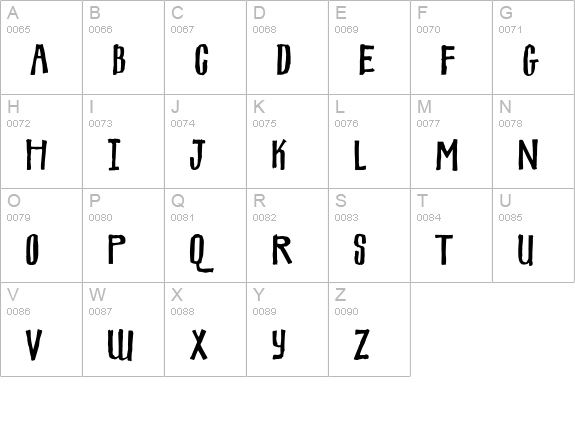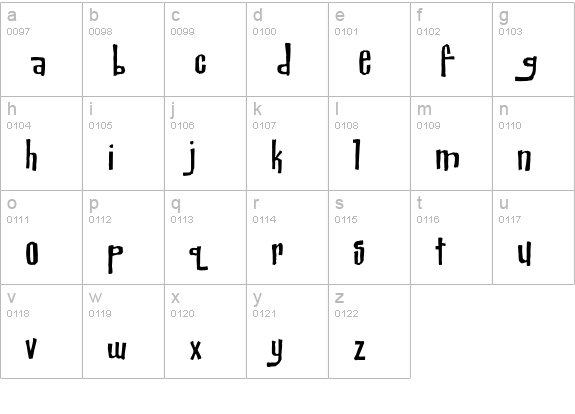
Miscreant font is a bold and edgy typeface that exudes rebellious energy and a sense of nonconformity. Its sharp angles and jagged edges give it a distinct and unique look that sets it apart from traditional fonts. Miscreant is perfect for projects that require a daring and unconventional aesthetic, making it ideal for posters, album covers, and branding materials. Despite its unconventional appearance, Miscreant font is surprisingly versatile and can be used in a variety of design applications. Whether you're looking to make a bold statement or add a touch of edge to your work, Miscreant is sure to make an impact. Best of all, Miscreant font is available for free download at FontsMarket.com, making it accessible to all designers looking to add a rebellious twist to their projects. So go ahead and unleash your creativity with Miscreant font today!